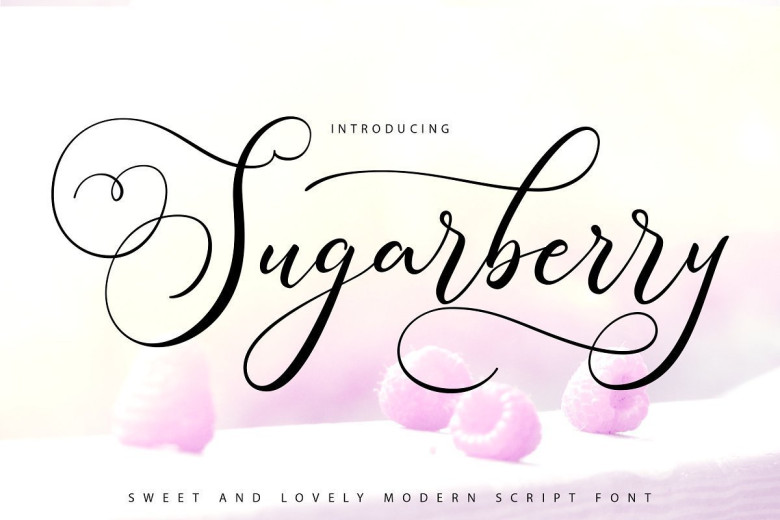
Sugarberry Calligraphy Script Font
Sugarberry Font a new modern calligraphy script with a elegant italic style, and contains soft and neat glyph characters!. With a style like this, this font will be suitable in use for logo’s, branding projects, home-ware designs, product packaging, mugs, quotes, posters, shopping bags, logo’s, t-shirts, book covers, name card, invitation cards, greeting cards, and all your other lovely projects.